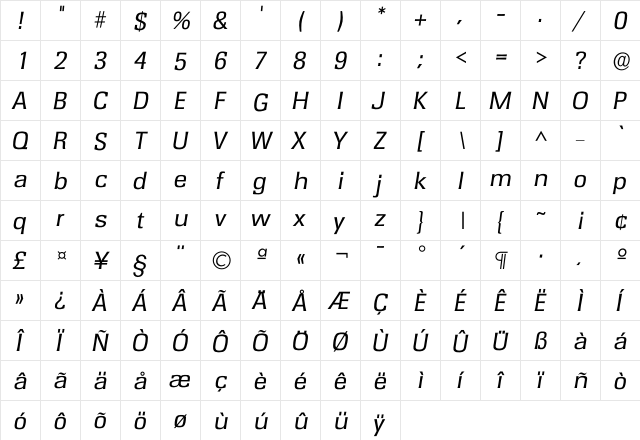
Irochester Regular
Design Context for Irochester Typeface
Irochester takes a measured approach to typography — its balanced proportions and neutral character make it a reliable workhorse for both digital and print work.